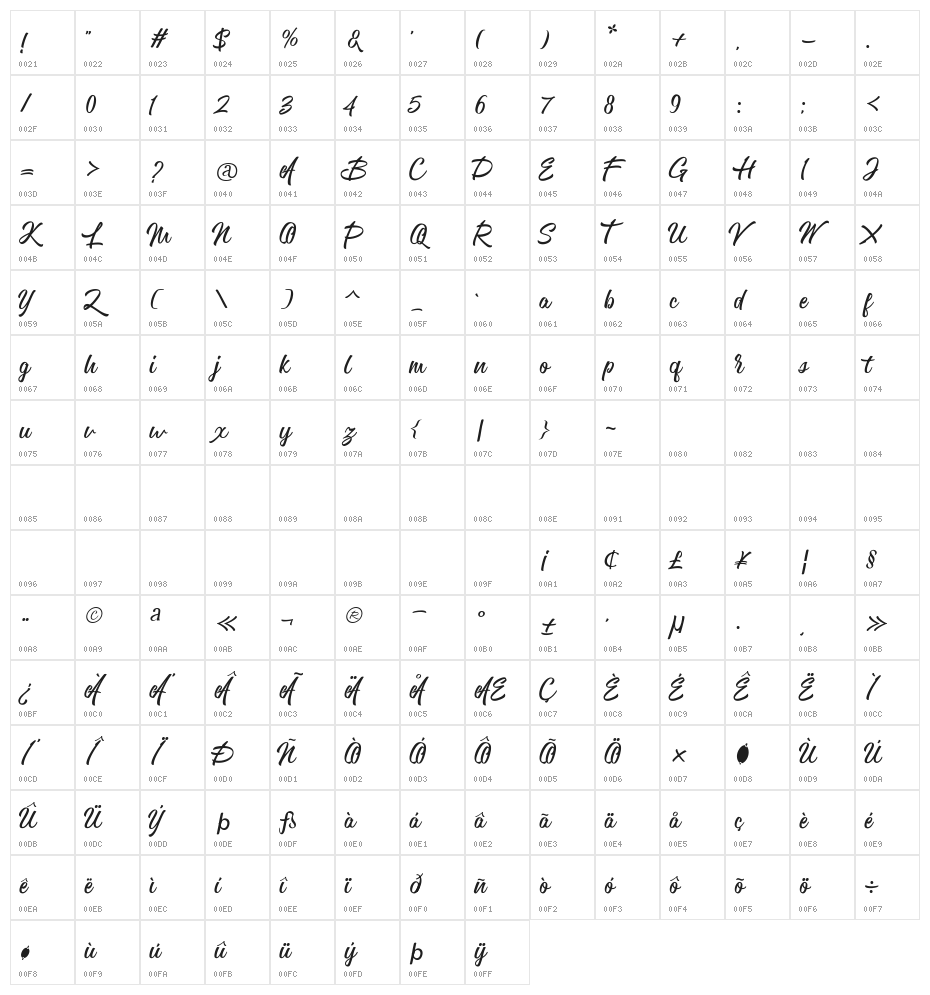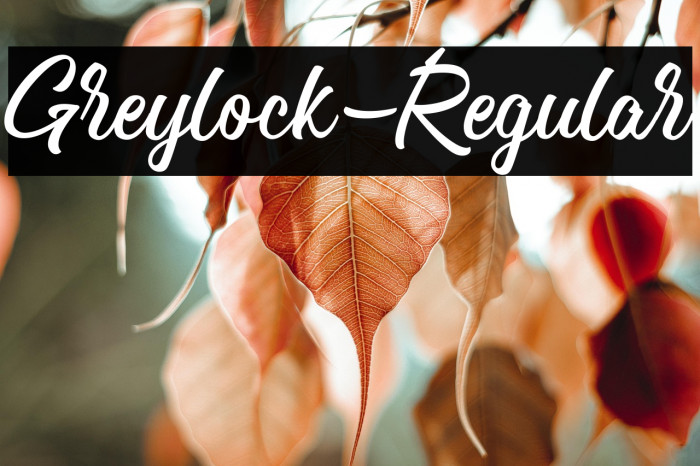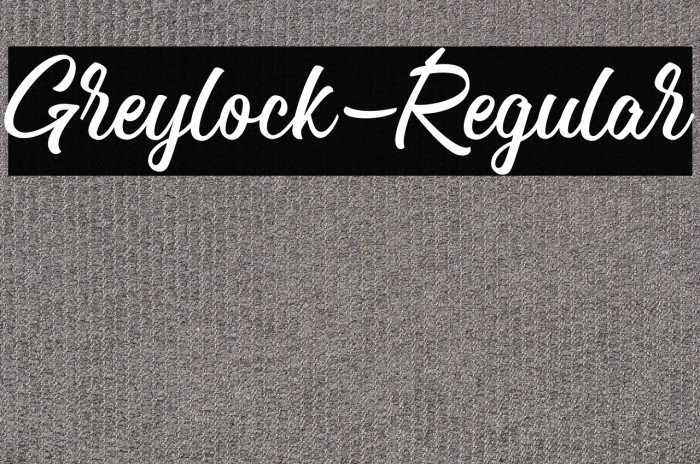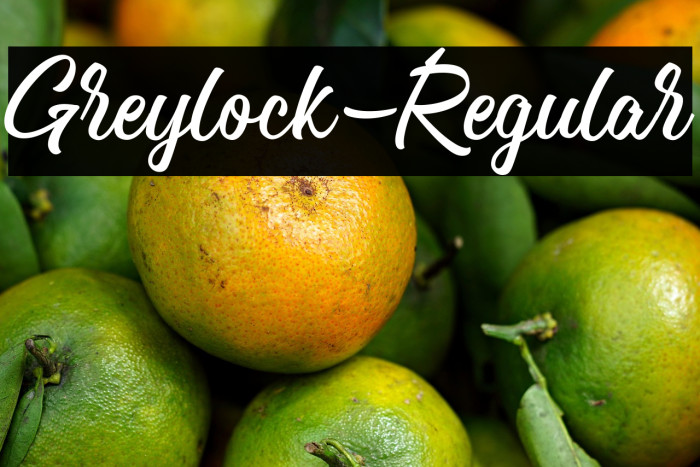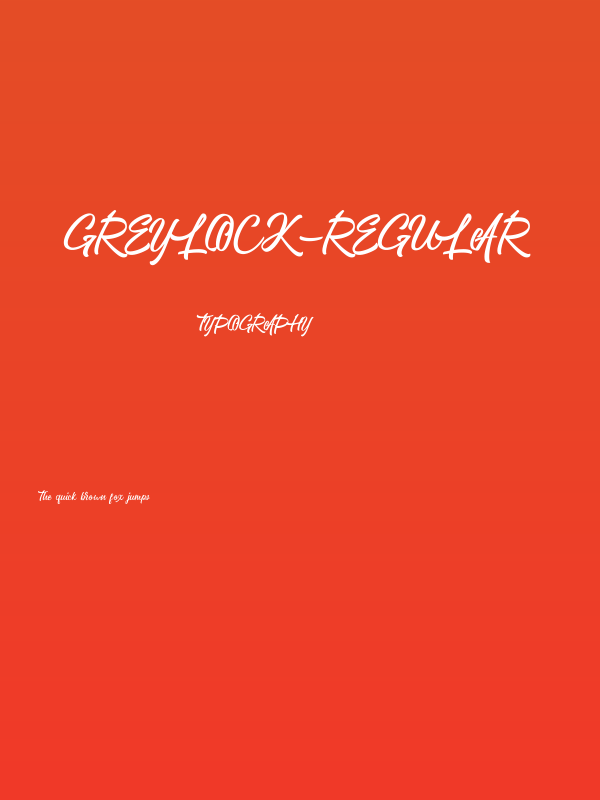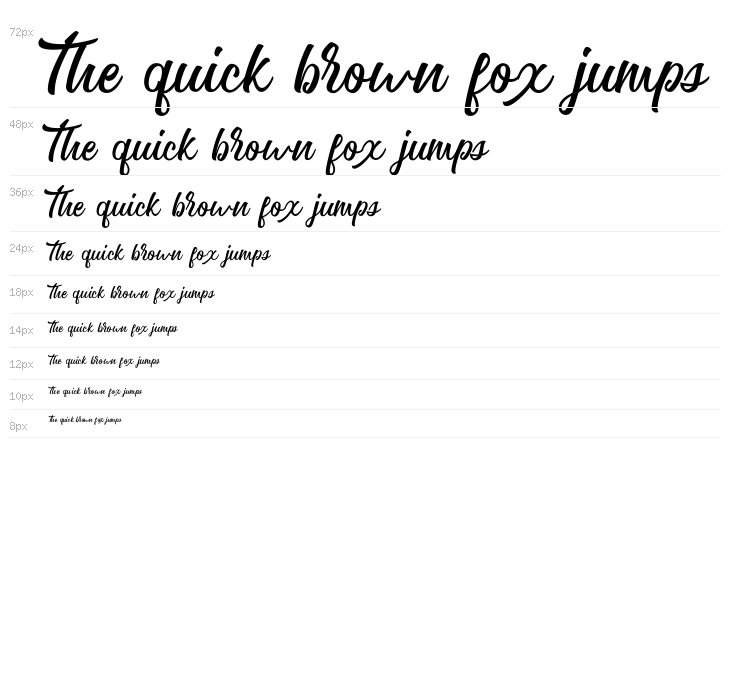
Greylock-Regular Font
Greylock-Regular Description
This font exhibits a flowing, cursive style with a modern and elegant touch. The characters are interconnected, creating a seamless and fluid appearance that mimics natural handwriting. The uppercase letters are bold and prominent, while the lowercase letters maintain a consistent flow, enhancing readability. The numbers and special characters are designed with the same fluidity, ensuring a cohesive look across all elements. This font's smooth curves and balanced proportions make it suitable for a variety of design applications.
| Use Case | Logos, Invitations, Branding |
| Proposed Projects | Ideal for wedding invitations, greeting cards, branding, and logo design where a personal and elegant touch is desired. |